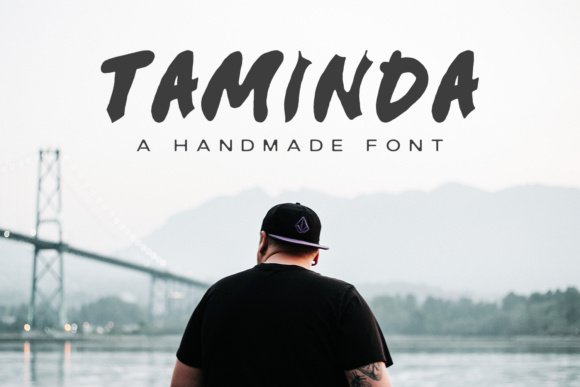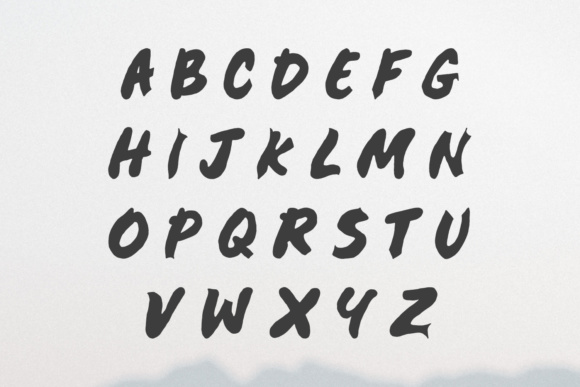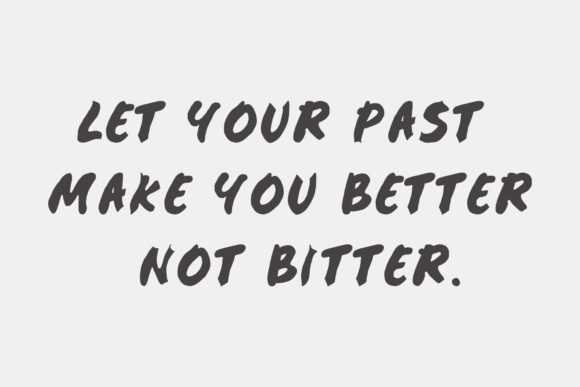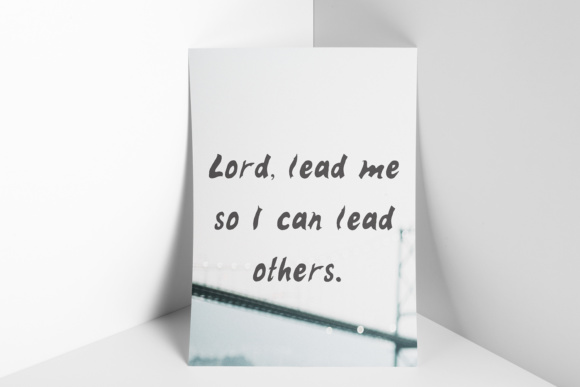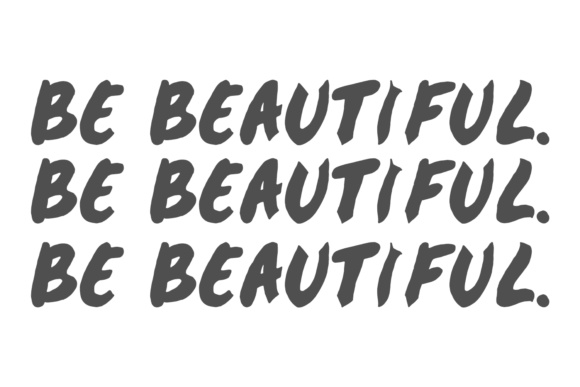
Taminda Font
About Taminda Font
The Taminda is a handmade, modern font. It’s written with a soft hand to produce a striking high quality font.
It’s great for branding, posters, logos, quotes, covers, and much more!